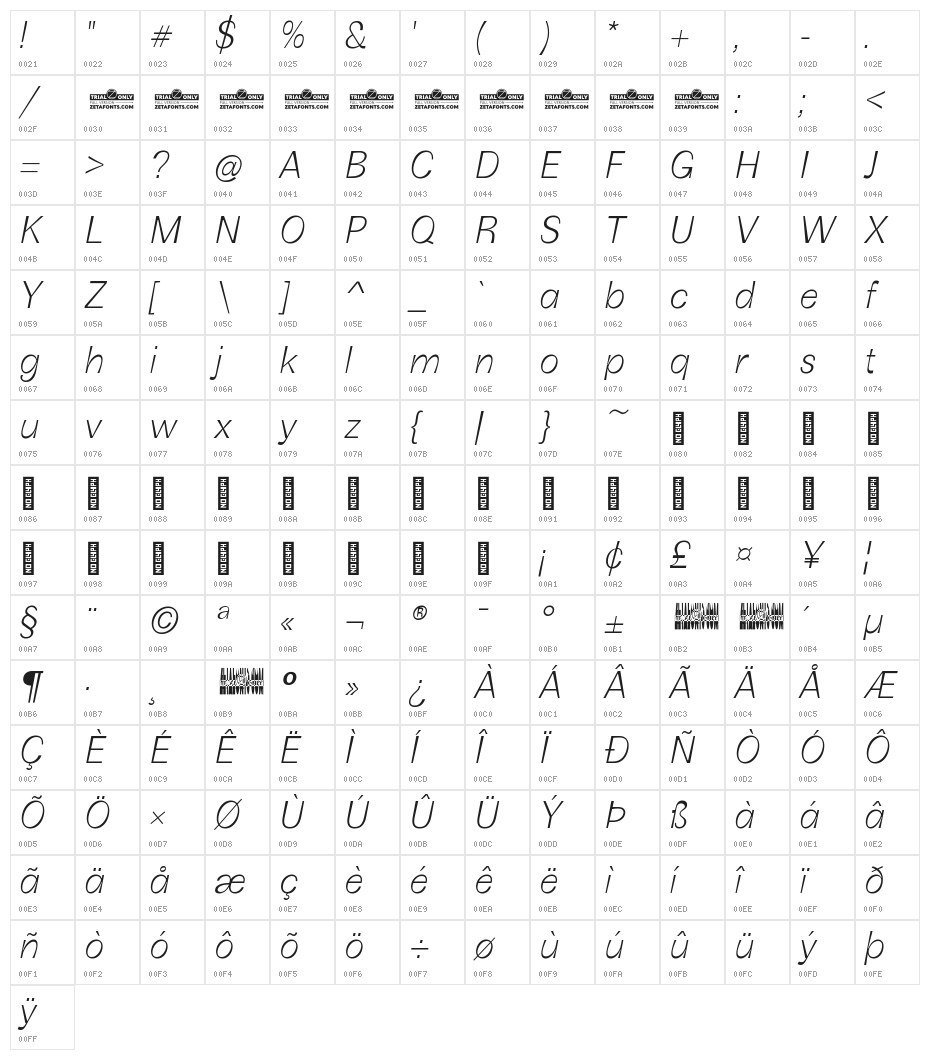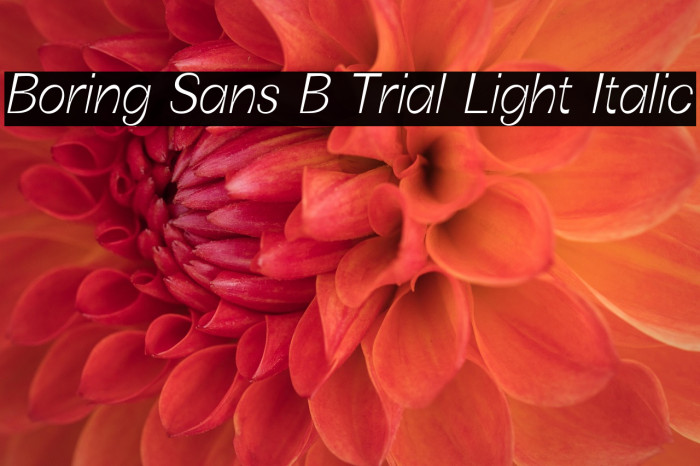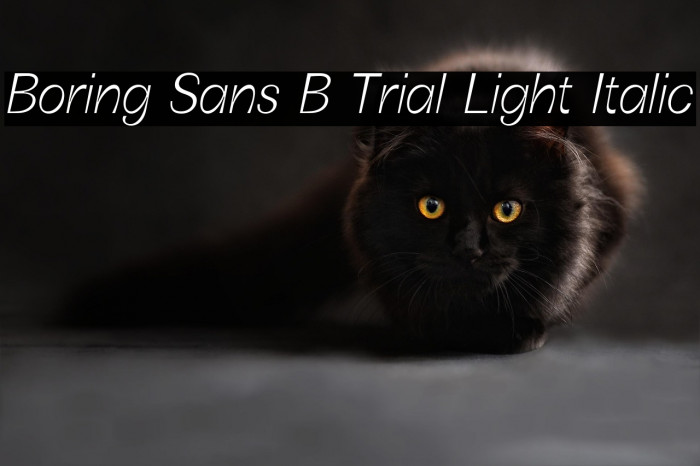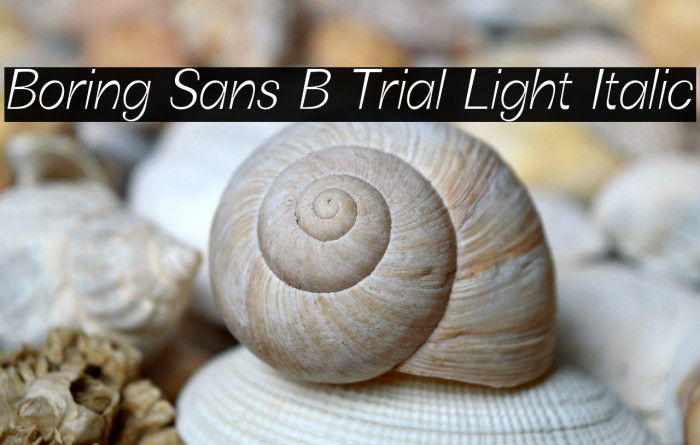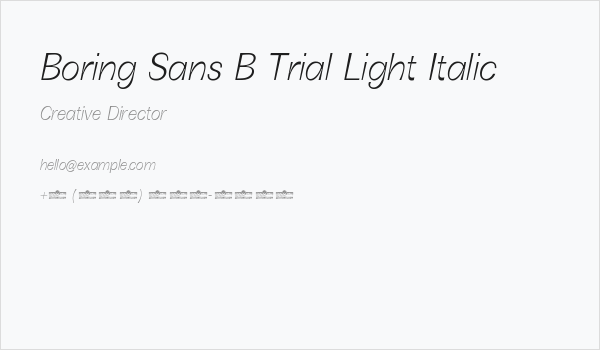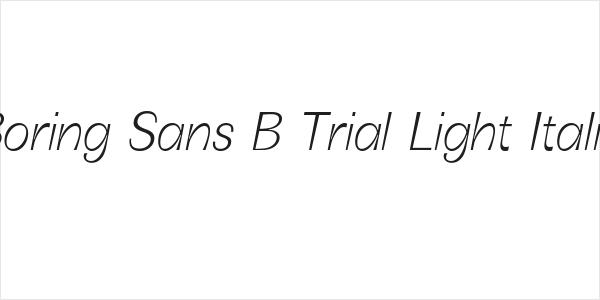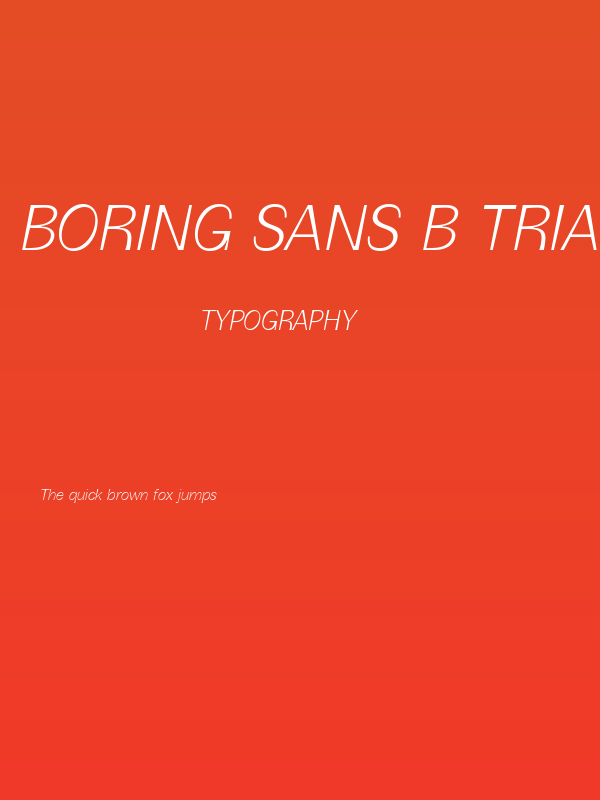
Boring Sans B Trial Light Italic Font
Boring Sans B Trial Light Italic Description
This font features a clean and modern sans-serif design with a light weight and italic style. The characters are sleek and slightly slanted, giving a sense of motion and elegance. The uppercase and lowercase letters maintain a consistent stroke width, contributing to a uniform appearance. The numerals and special characters are designed with simplicity and clarity in mind, making them easily legible. The overall design is minimalistic, focusing on readability and contemporary aesthetics.